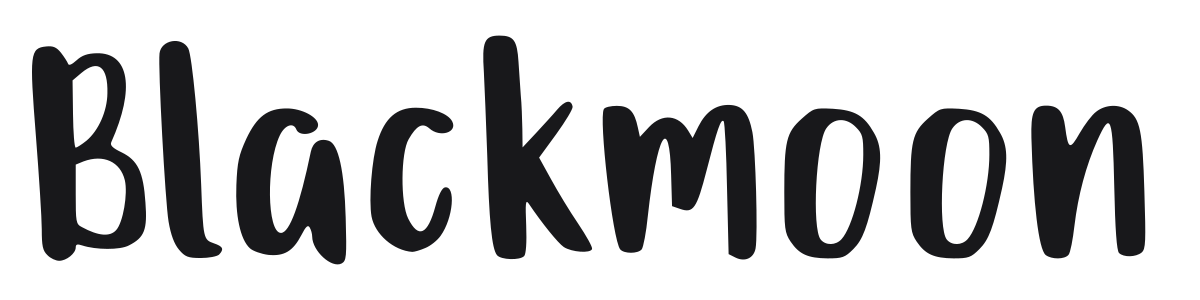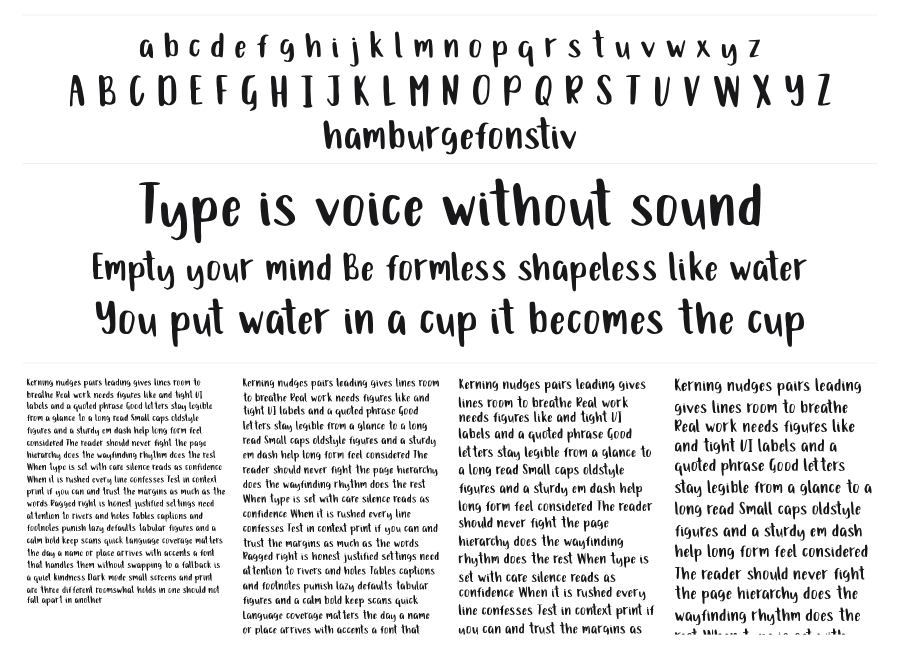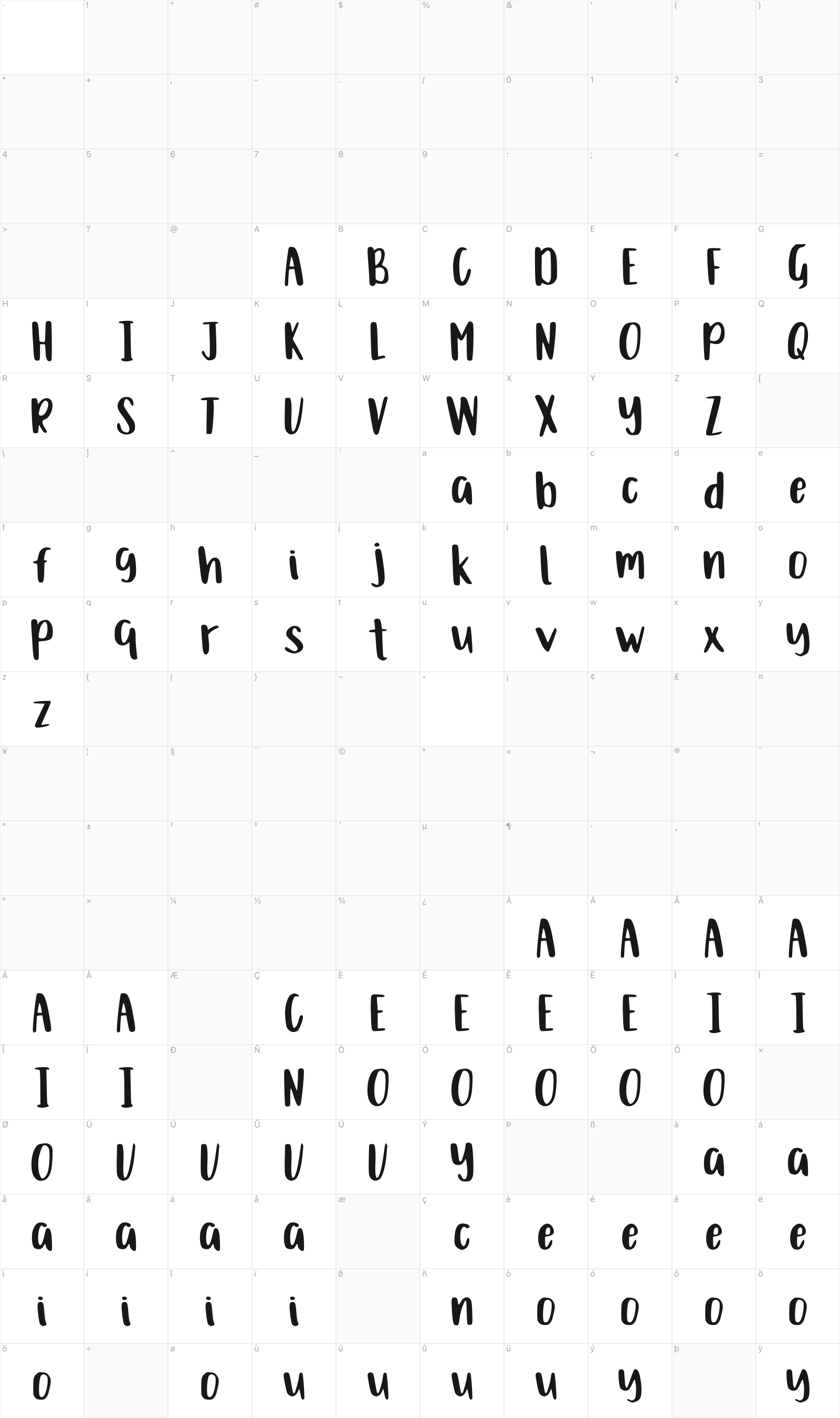
Blackmoon
Blackmoon is an upright casual script that captures the relaxed energy of hand lettering without leaning into calligraphy. Its rounded strokes and slight bounce give it a warm, approachable voice that works well on packaging, social graphics, and informal brand identities. Friendly without being childish.